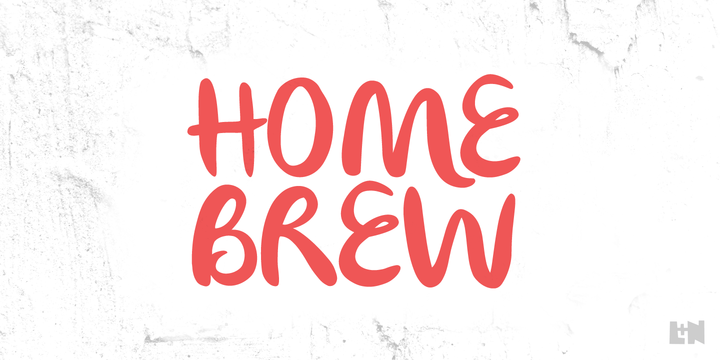
Olivier
Olivier font is a perfect match for short paragraphs and headlines, logo types, because of its shifting base, cap lines, varying tails and ascenders. Letters look almost playful, like they’re mimicking fluidity of wine (the actual inspiration for this font).
Painted black ink letters remind us of postcards and a long forgotten holiday, stirring those feelings of nostalgia